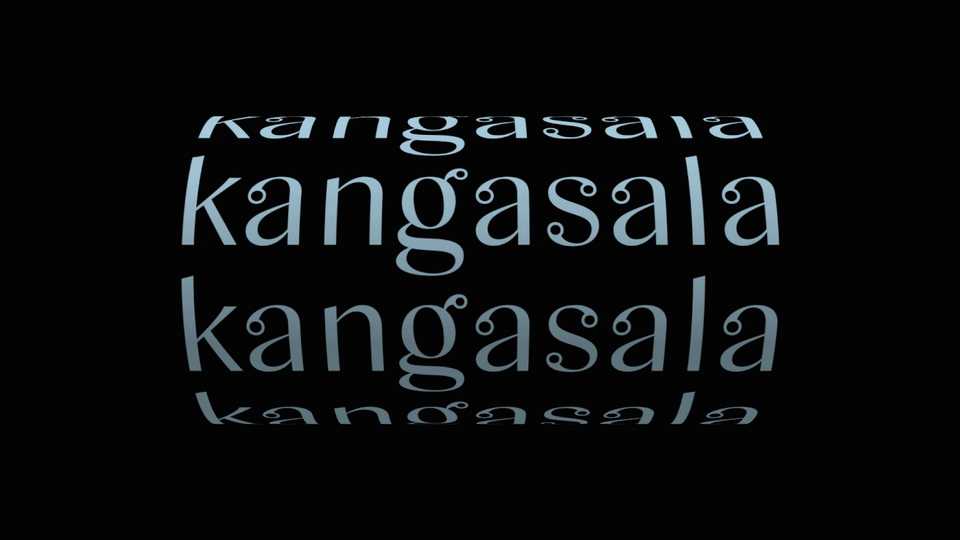
Download Kangasala font, a modern sans serif typeface that is ideal for gorgeous logos and titles. Kangasala beautifully pairs with many fonts and perfectly works with any design project.
Designer: Elina Panda